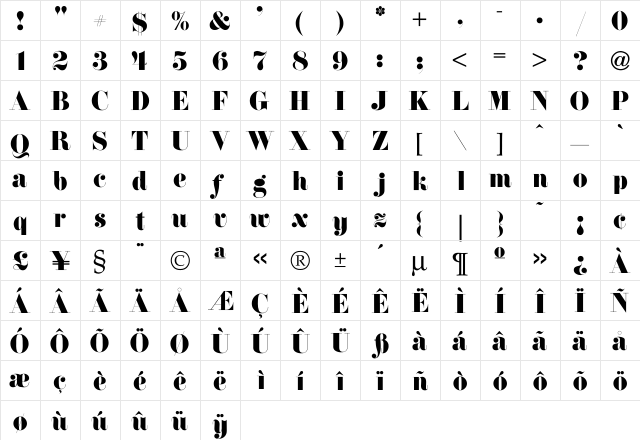
NewDawne-Normal Regular
Design Context for NewDawne-Normal Typeface
NewDawne-Normal takes a measured approach to typography — its balanced proportions and neutral character make it a reliable workhorse for both digital and print work.
Pro Tip: Pair NewDawne-Normal with a font of contrasting weight or personality to build a more expressive typographic hierarchy.